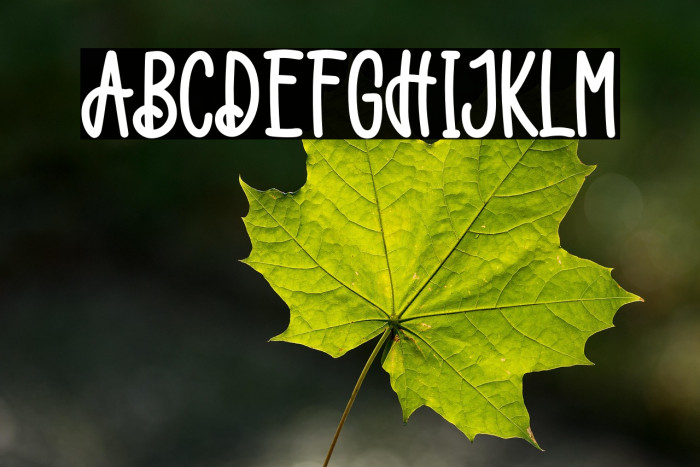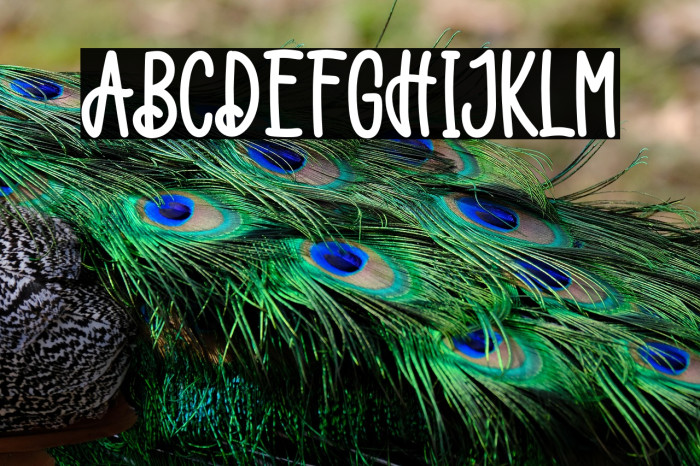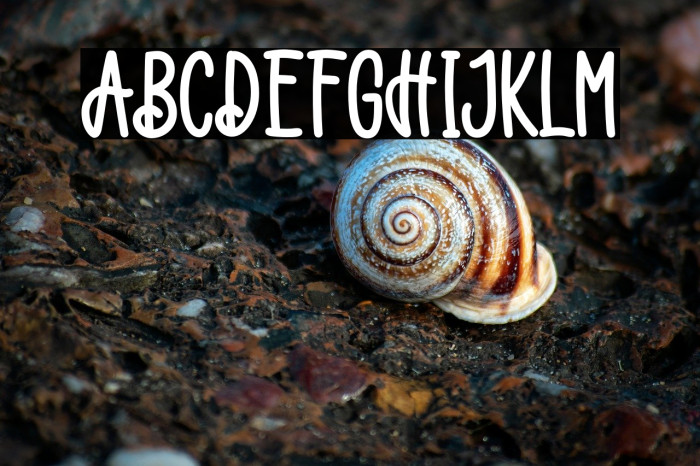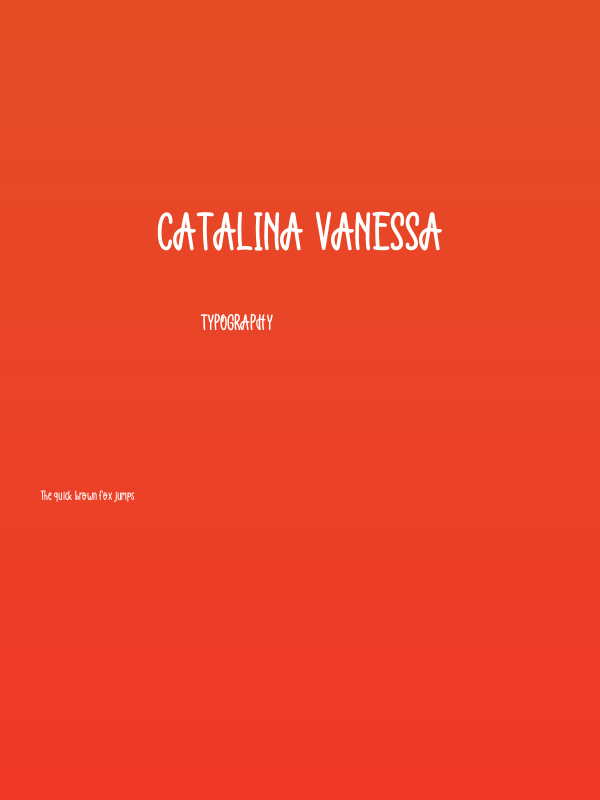
Catalina Vanessa Font
Catalina Vanessa Description
A playful, handwritten font with a casual and friendly appearance, featuring rounded edges and a slightly irregular baseline.
| Use Case | Headlines, Informal text, Branding |
| Proposed Projects | Greeting cards, children's books, casual branding. |